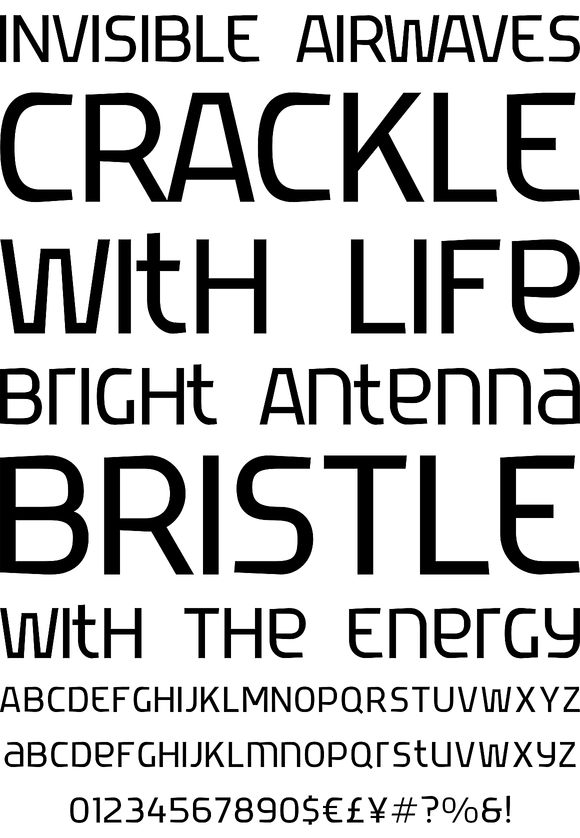
Foundry: Gaslight
Reserv was inspired by a logo which I did for company Evroterm. A few weeks after I saw this logo I asked myself: Why not design a font based on this? In two or three weights? Reserv works best when used in advertising and display typography.